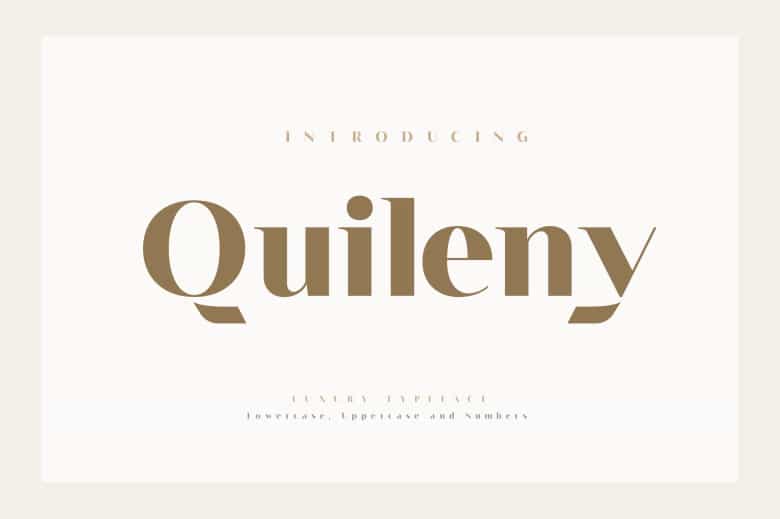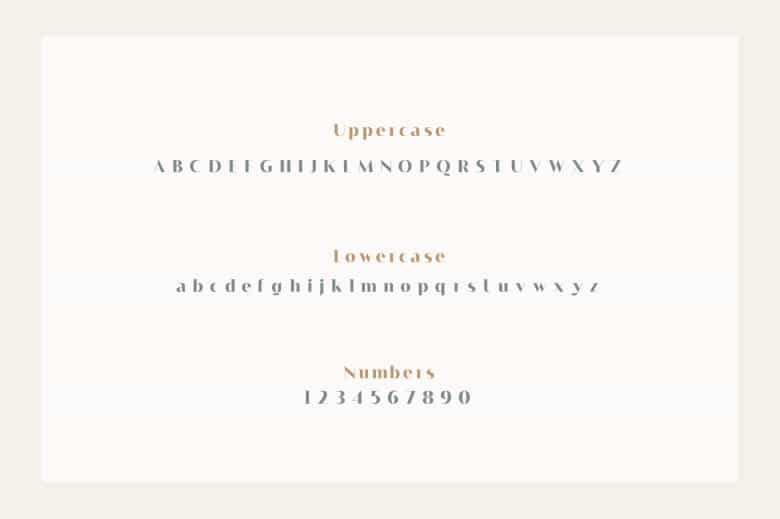
Discover Quileny Font, part of the Serif collection—a versatile and unique font perfect for adding a personal touch to your projects. Download it for free and enjoy crafting designs with style, from invitations to social media posts. This font is available exclusively for personal use, giving you the freedom to create without limits. Unlock your creativity with Quileny Font today!
Quileny is an elegant and bold serif font. Be amazed by its incredible versatility when making wedding invitations, stationary art pieces, tweets on social networks or any other type of beautiful creation! Quileny will delight!